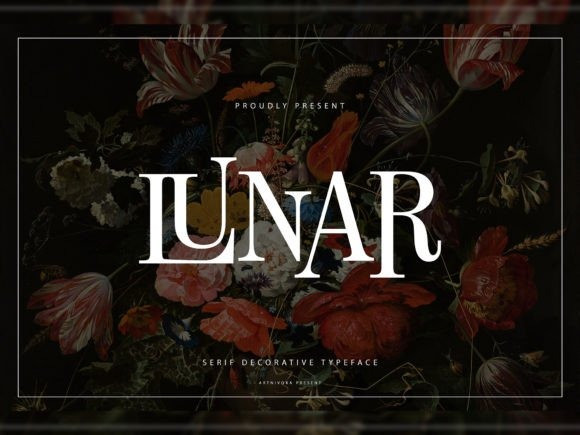
Lunar Font
Lunar font is an elegant display serif typeface that exudes timeless charm and sophistication. With its refined lines and distinctive serifs, Lunar adds a touch of classic beauty to your designs. Whether you’re creating invitations, headlines, or branding materials, this font brings a touch of celestial grace that is both modern and versatile.